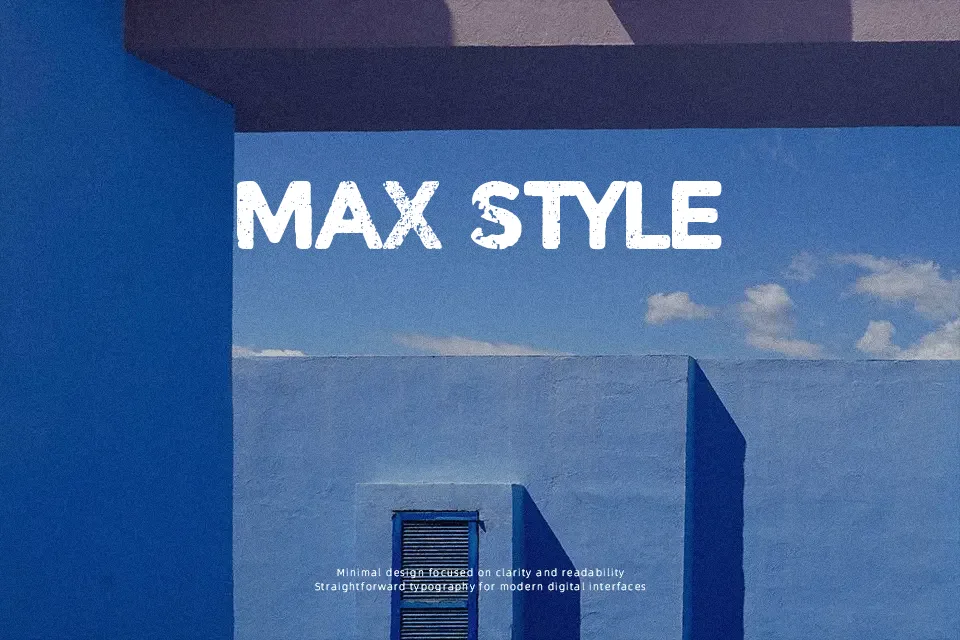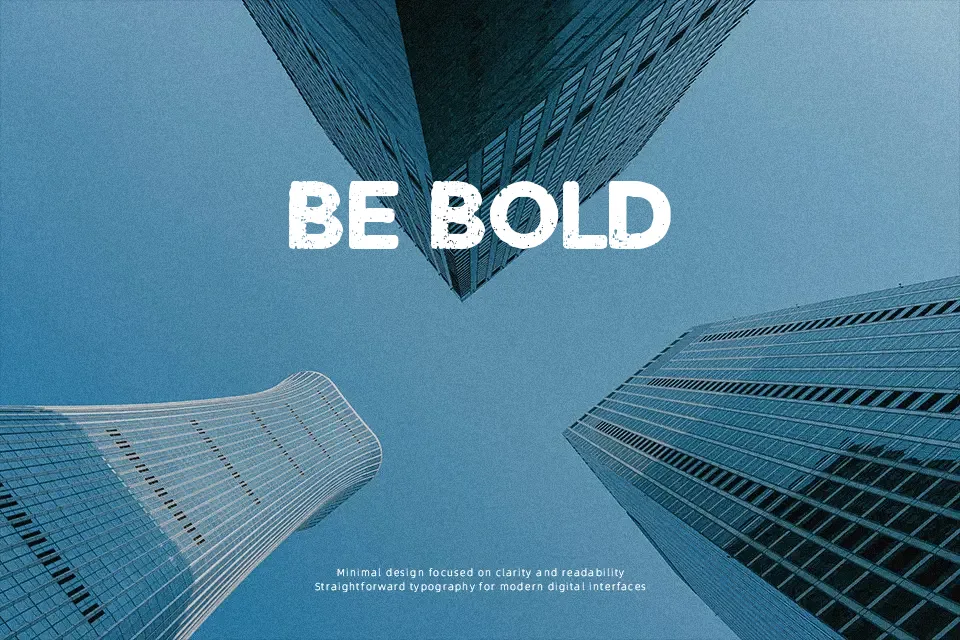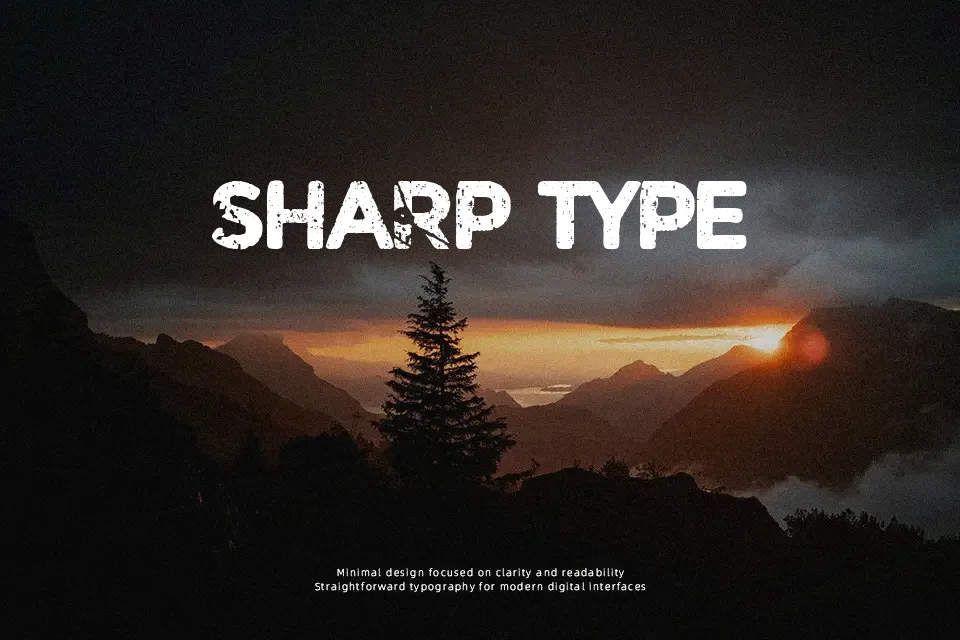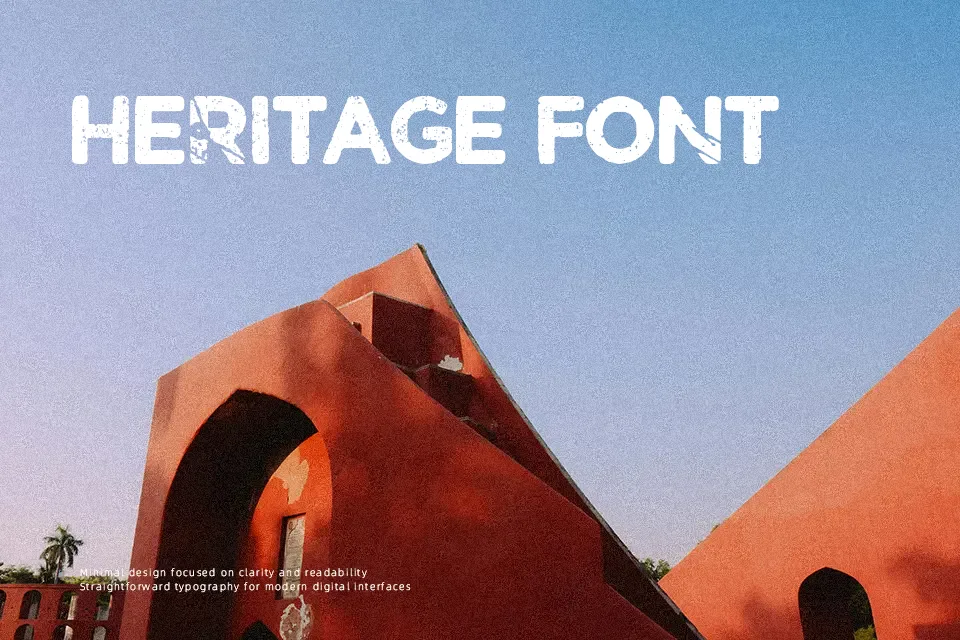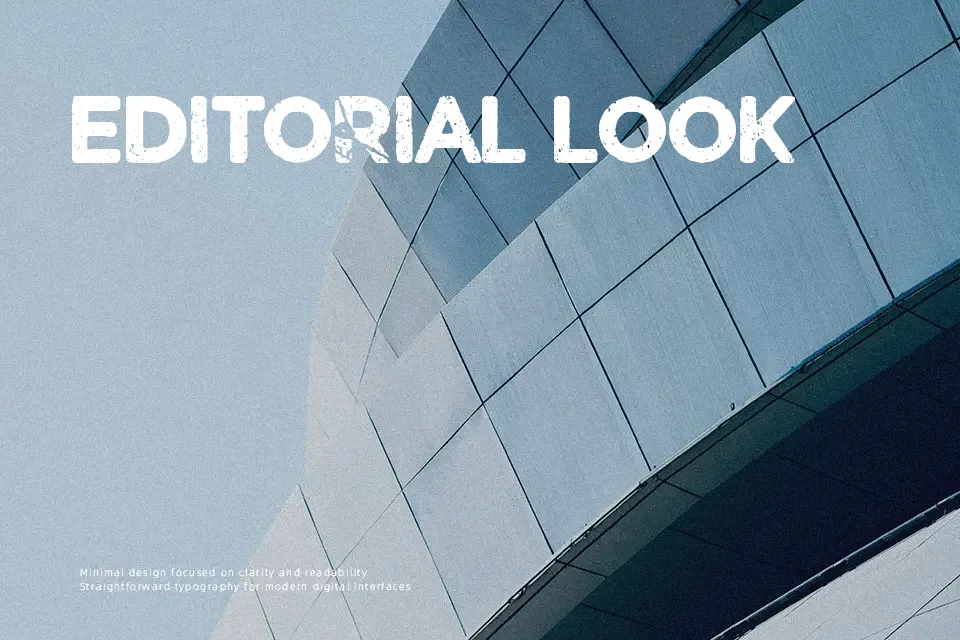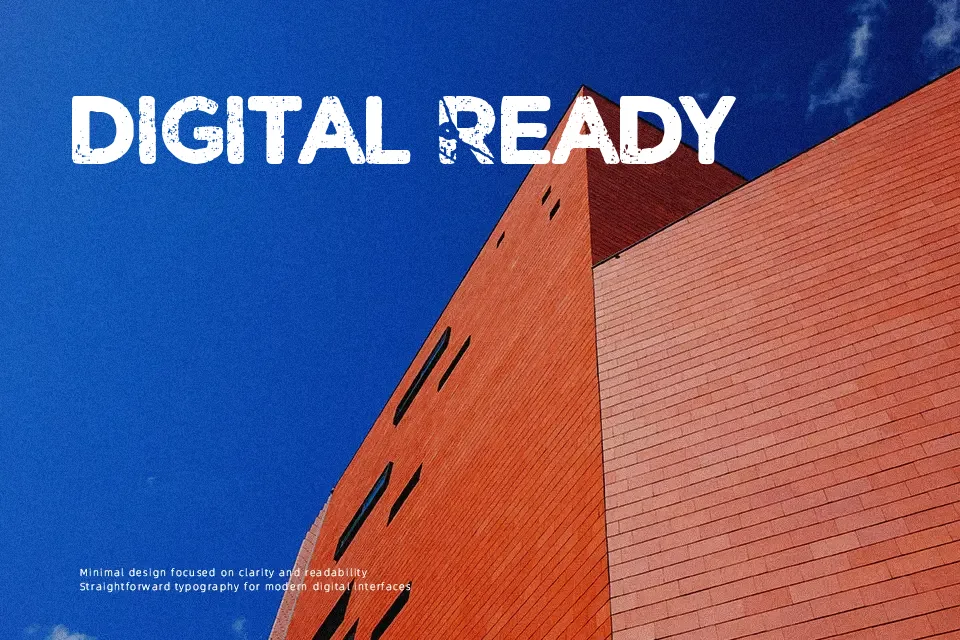
Rivoluzione Font
A large protest headline or striking album cover benefits immensely from Rivoluzione Font, which introduces a raw, heavily eroded structure to any layout. The thick, distressed letterforms display irregular textures and rough edges, immediately establishing a weathered, rebellious appearance. Spacing remains tight enough to maintain overall rhythm, while the massive stroke weight ensures commanding visibility across large applications. However, the aggressive texturing severely impacts legibility when scaled down, making it unsuitable for extended reading. The heavy strokes improve visibility in posters by anchoring the design with intense visual weight. Ultimately, this typeface shines in urban branding, grunge packaging, and aggressive editorial spreads where pure visual intensity outweighs traditional clarity.
music festival posters,urban street branding,grunge product packaging,rebellious apparel graphics
long paragraph text,small interface labels,dense editorial layouts,technical documentation
Perfect for branding, fashion, and music, with a bold and decorative style.